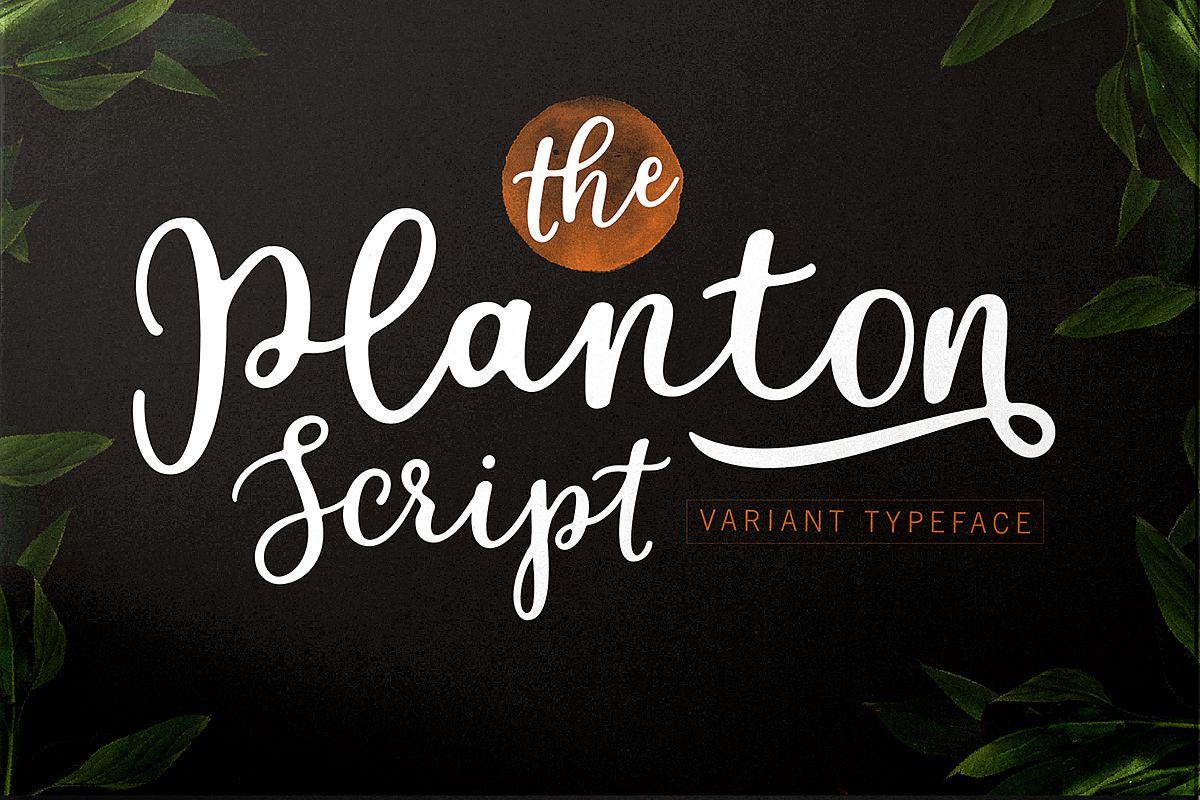
Introducing Planton Script the new script calligraphy hand lettered typography modern variant Whats INCLUDED? . Planton Script .otf . Planton Script .ttf . Planton Slant .otf . Planton Slant .ttf There are more than 433 glyphs in a font including stylistic sets, Contextual Substitute & Special Unicode Code etc. OpenType features with the Stylistic Alternates, Alternative Contextual a few characters that allows you to mix and match pairs of letters according to your design. To access alternate glyphs, you need a program that supports OpenType features such as Adobe Illustrator CS and Adobe InDesign, Corel Draw, Microsoft Word 2010.Can be used for various purposes such as title, signature, logo, wedding invitations, t-shirts, letterhead, signage, labels, newsletters, posters, badges etc.